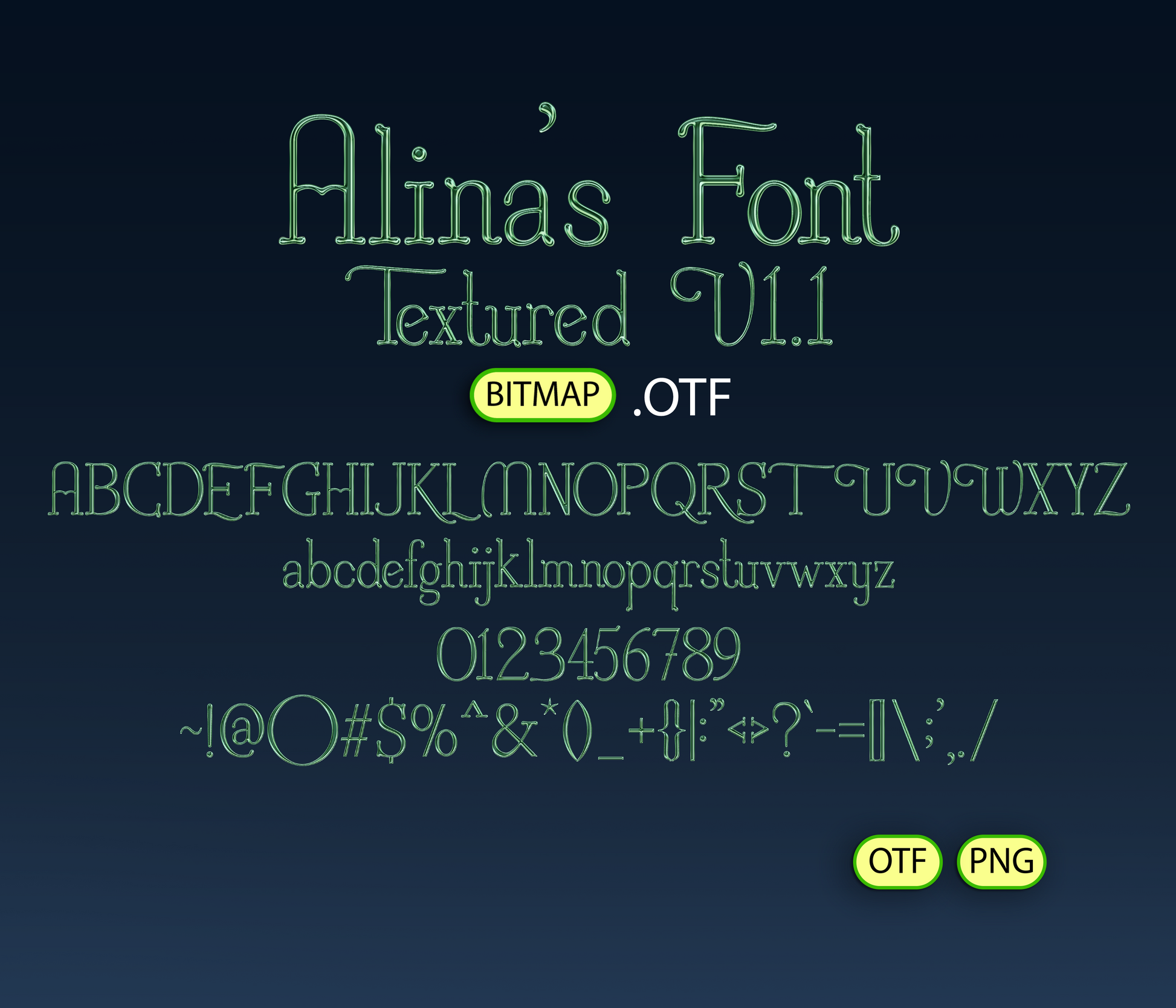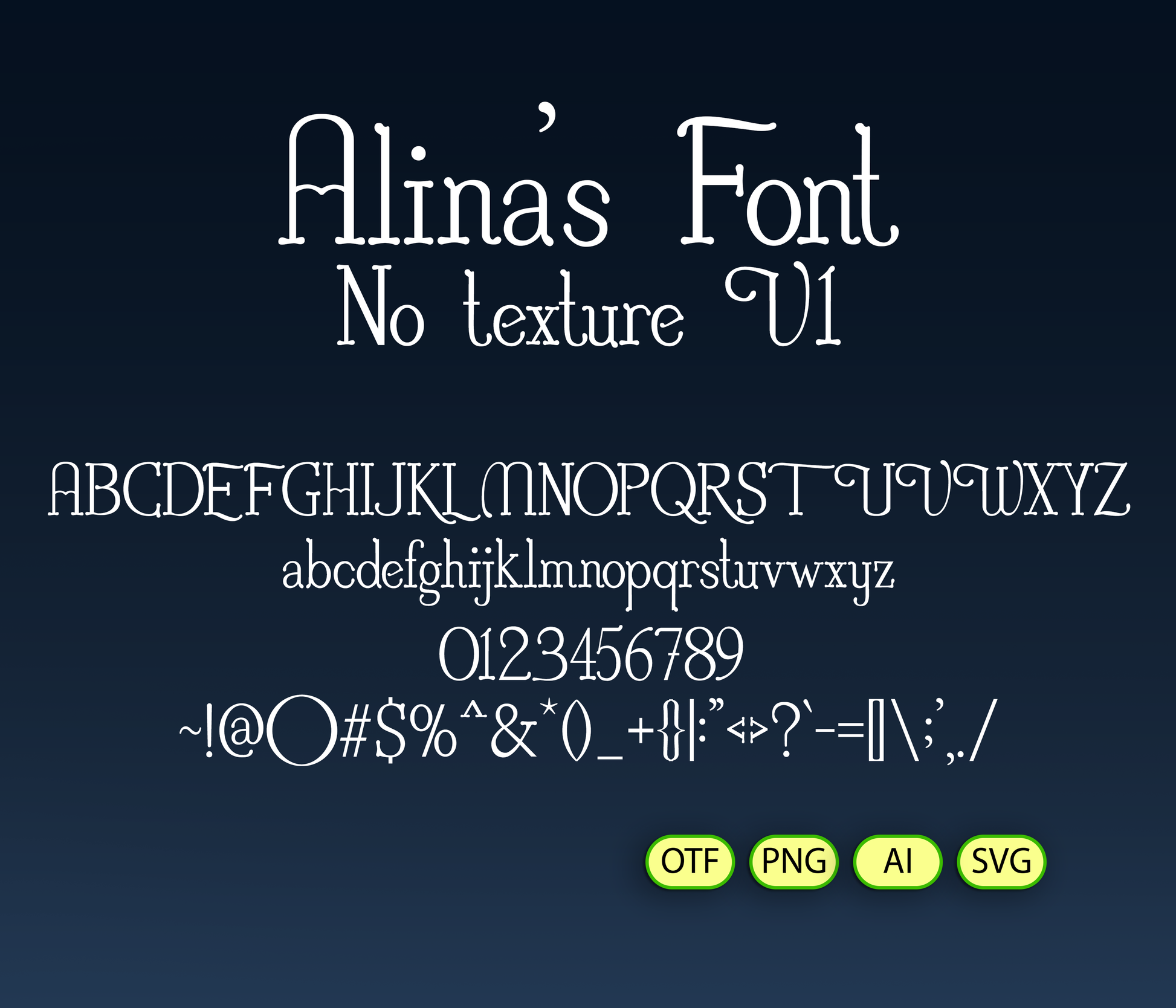
Yellow Path Dreams Font Textured
Step into the world of magical quests with our Yellow Path Dreams font, capturing the essence of beloved fairytales and enchanted journeys. Perfect for fantasy creators, theater groups, party planners, and digital artists, this font brings storybook magic to your projects. Create emerald castle invitations, ruby slipper decorations, or enchanted content with the timeless charm of courage, wisdom, and heart.
Our Yellow Path Dreams font features whimsical, magical lines and enchanted characters reflecting the wonder of fantastical adventures. Ideal for:
Our font pays tribute to the magical journey of friendship, empowering your designs with its whimsical and courageous spirit. Whether crafting fantasy materials, designing theatrical merchandise, or adding enchanted charm to special projects, this font communicates storybook wonder. Ready to skip down the golden road to creative success? This font is your key to magical design.